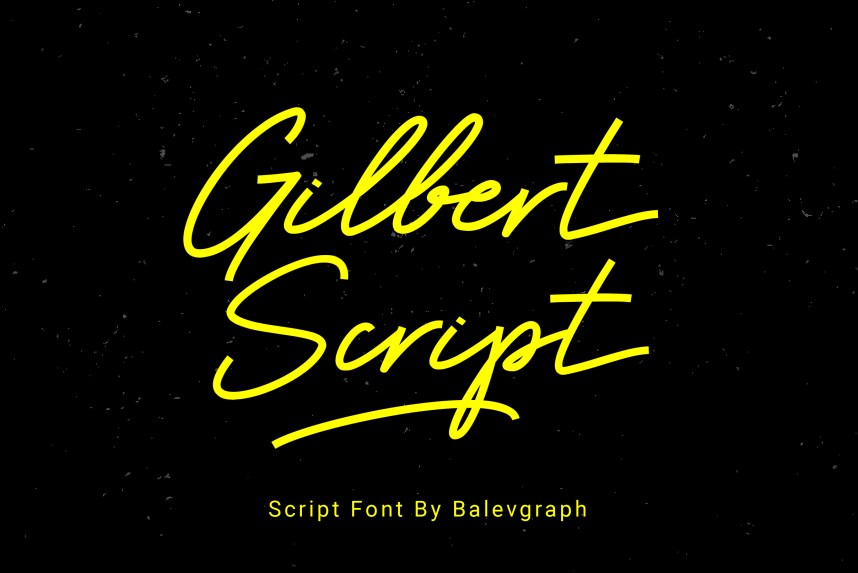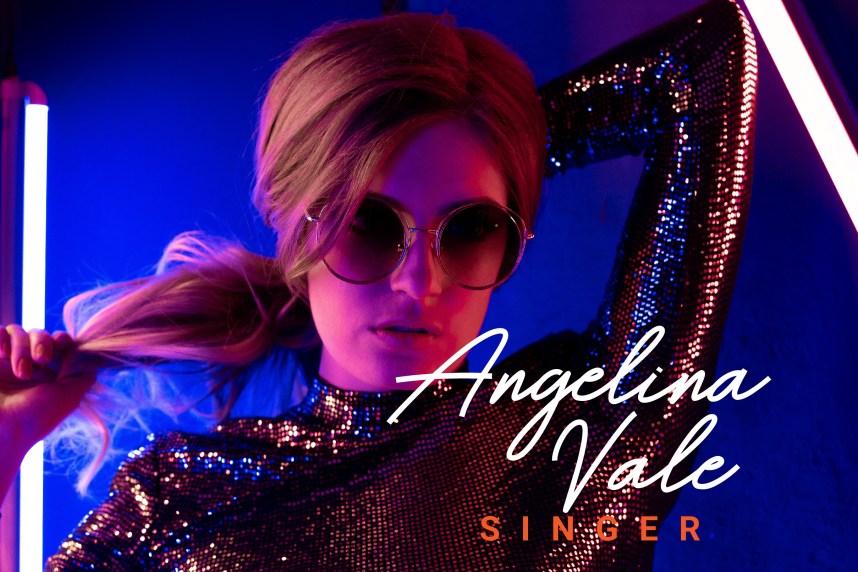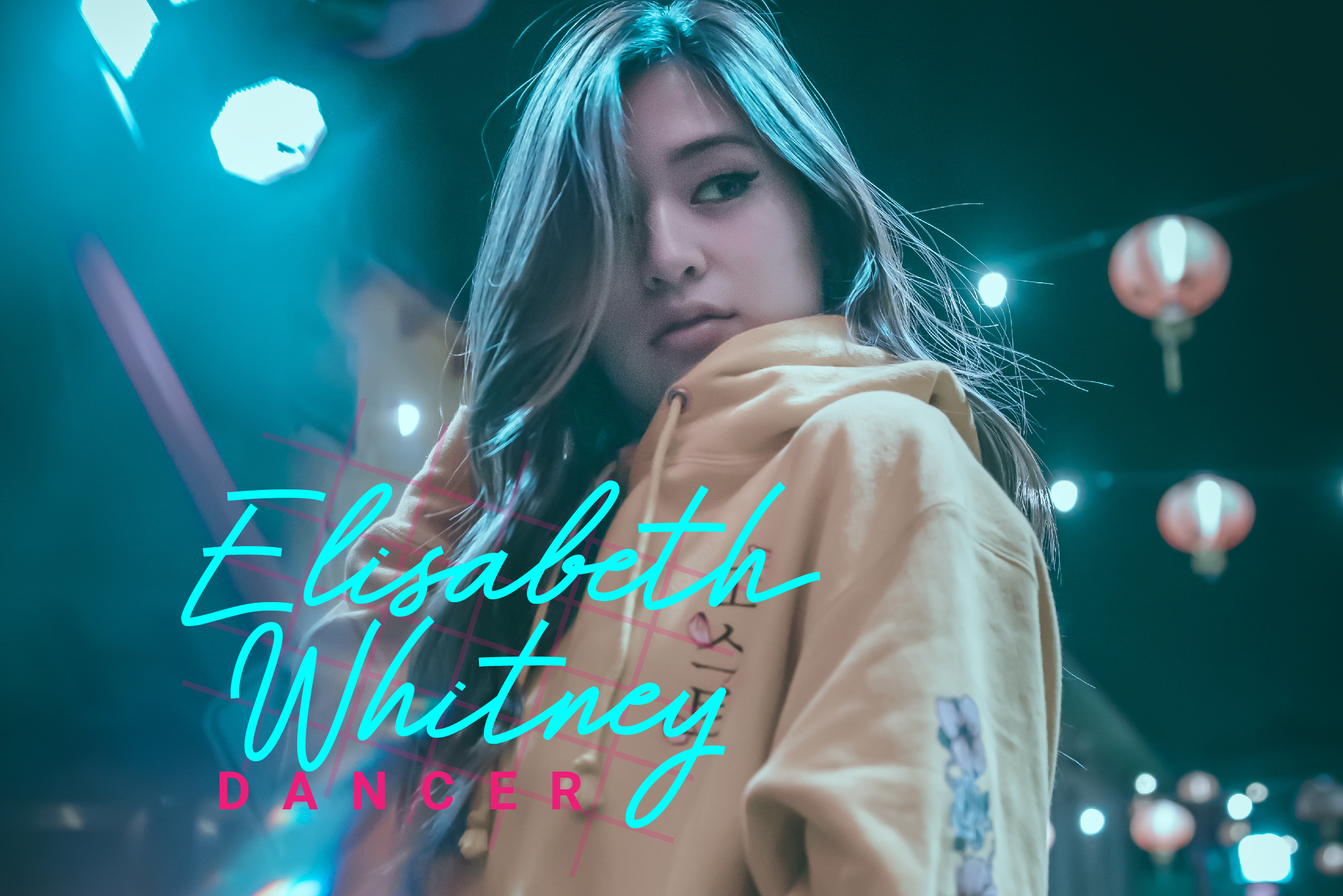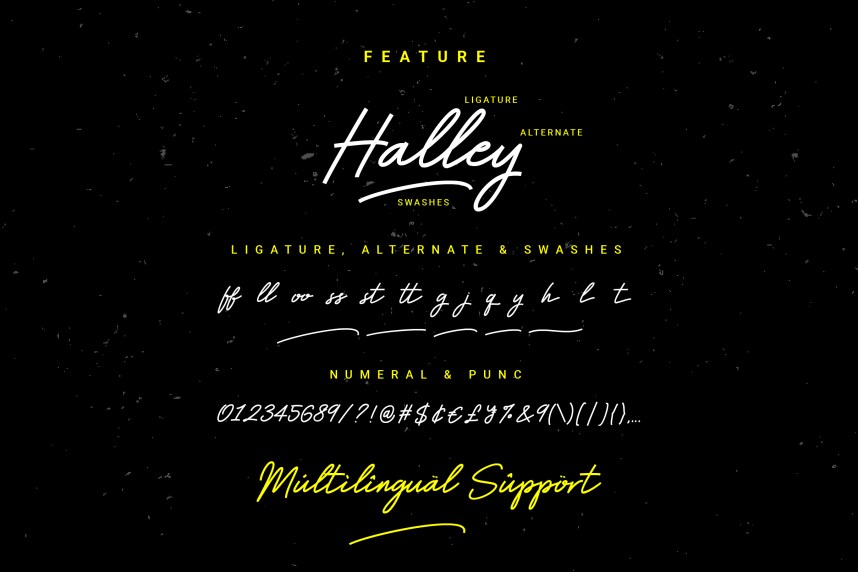
Gilbert Script Font
This is a thin lettered and graceful script font. Fall for its ravishing style and use it to create gorgeous wedding invitations, beautiful stationary art, eye-catching social media posts, and much more!